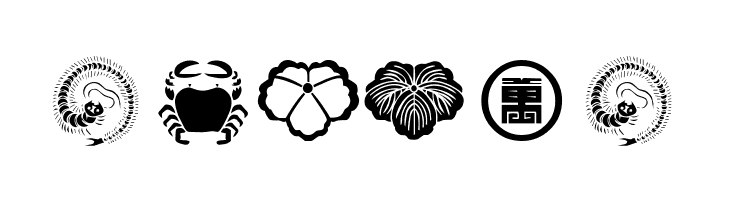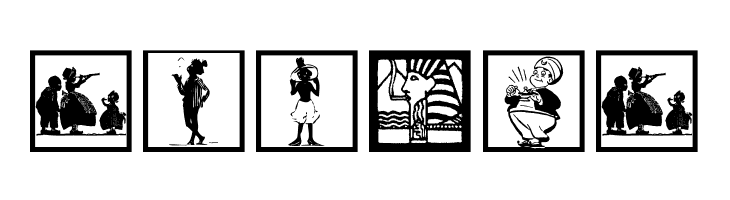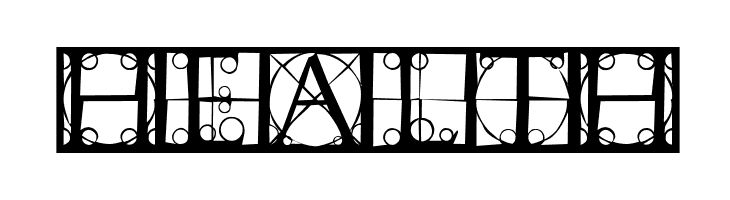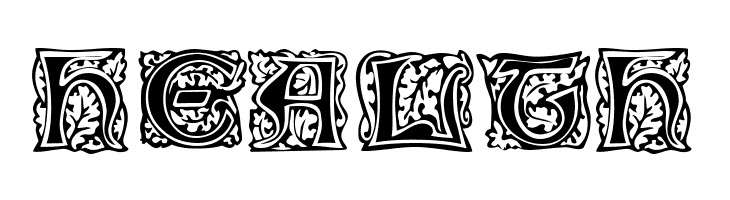
Decorative maritime-themed dingbat set with bold, vintage illustrations.
Illustrative font featuring diverse human figures and scenes.
An ornate, geometric font with intricate patterns and uppercase letters.
A decorative font featuring intricate Celtic knot designs with high contrast.
An ornate, decorative font with intricate floral patterns in each letter.
A playful set of bold, circular symbols with high-contrast designs.
Woodcut-style pictorial dingbat font with detailed illustrations.